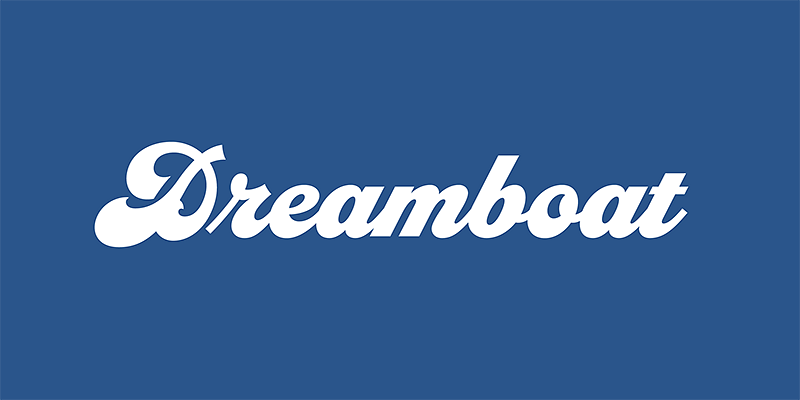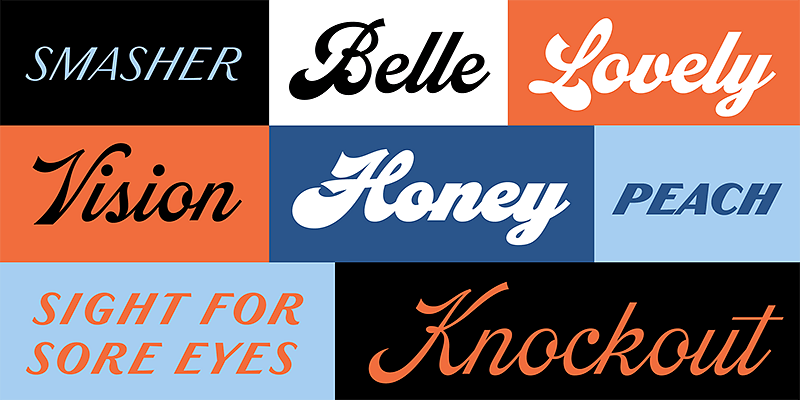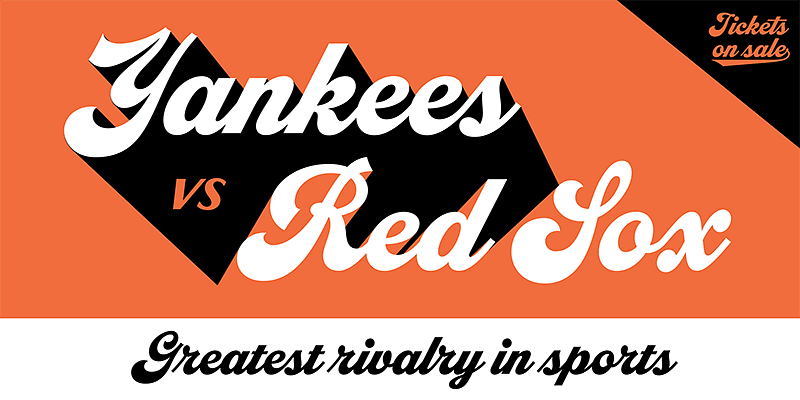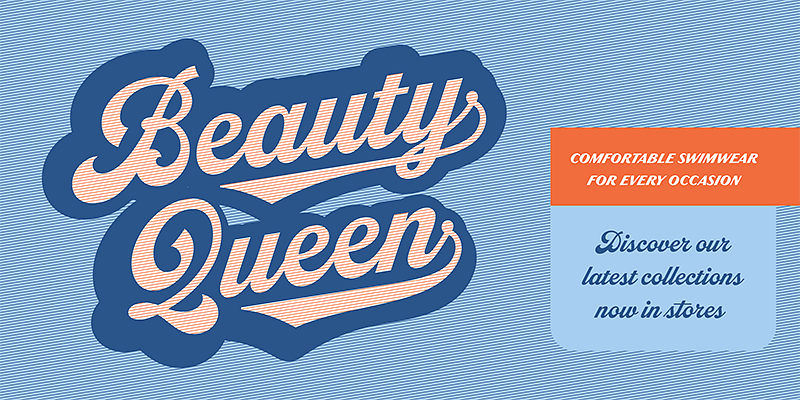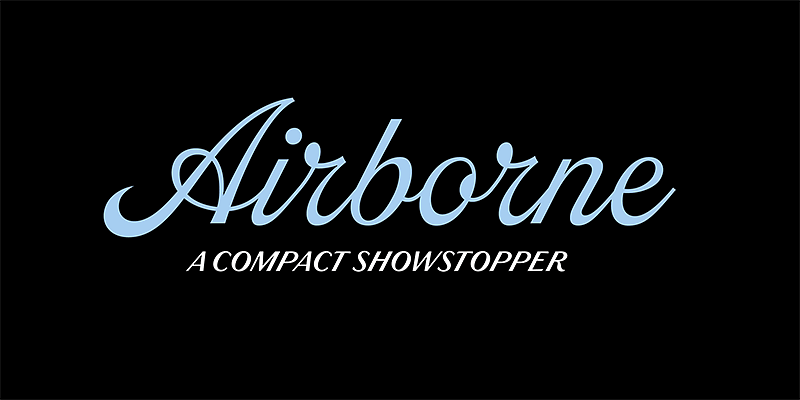
Dreamboat (2022) is typeface nearly 20 years in the making, It’s my take on the bold script style popular during the first few decades of the 20th century and revived later in custom lettering and logos starting in the 1960s, sometimes evolving into psychedelic or pop-art forms. Numerous familiar trademarks and brands still sport this style of lettering like Ford, Coca-Cola, Schlitz and any number of baseball club logos. The original single style would become the Bold weight and the full family expanded into six weights, ranging from Light to Black. There are numerous features like small caps, tails, and an alternate lowercase t with a high crossbar. Dreamboat is ready to knock your branding out of the park.